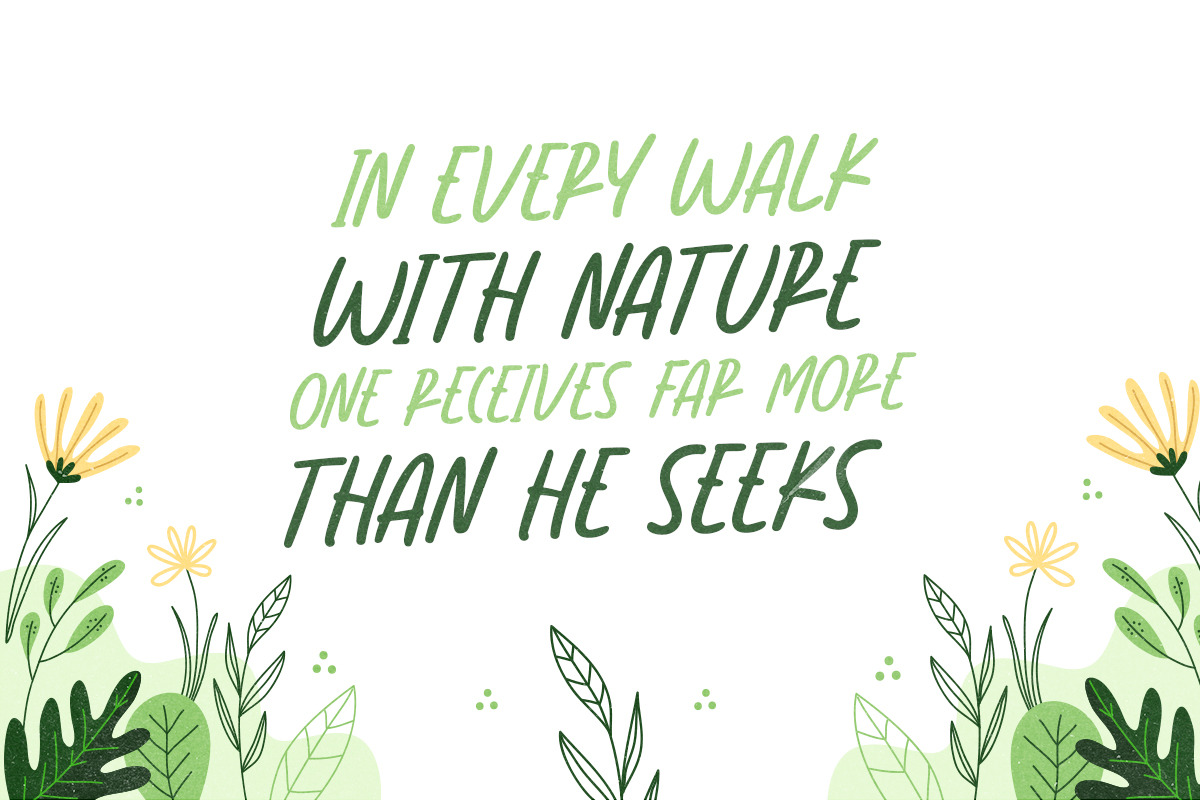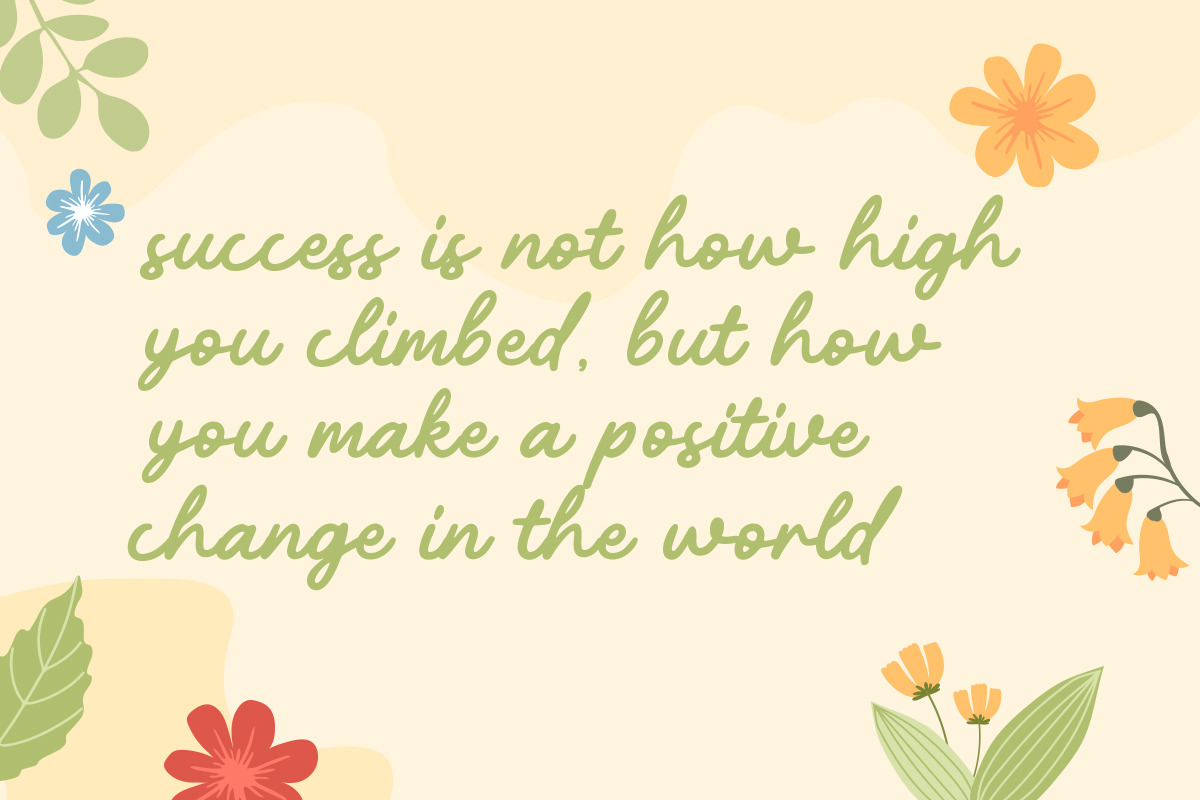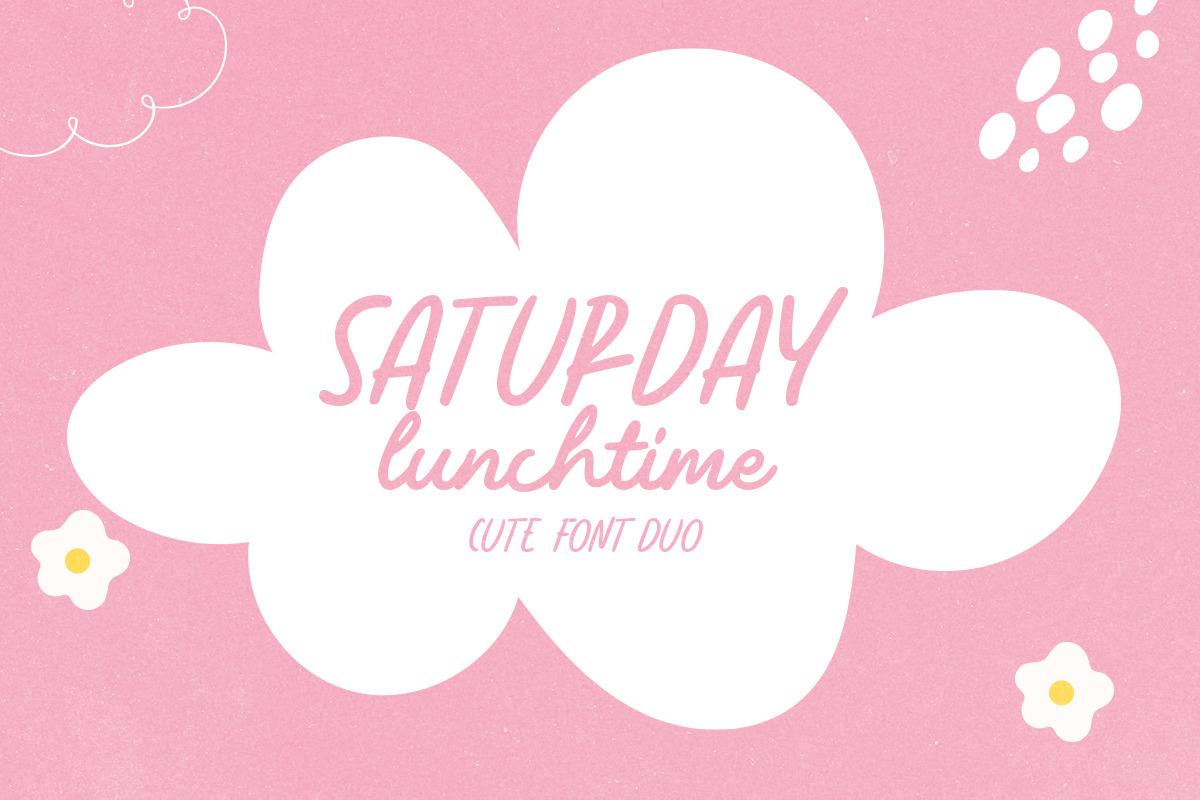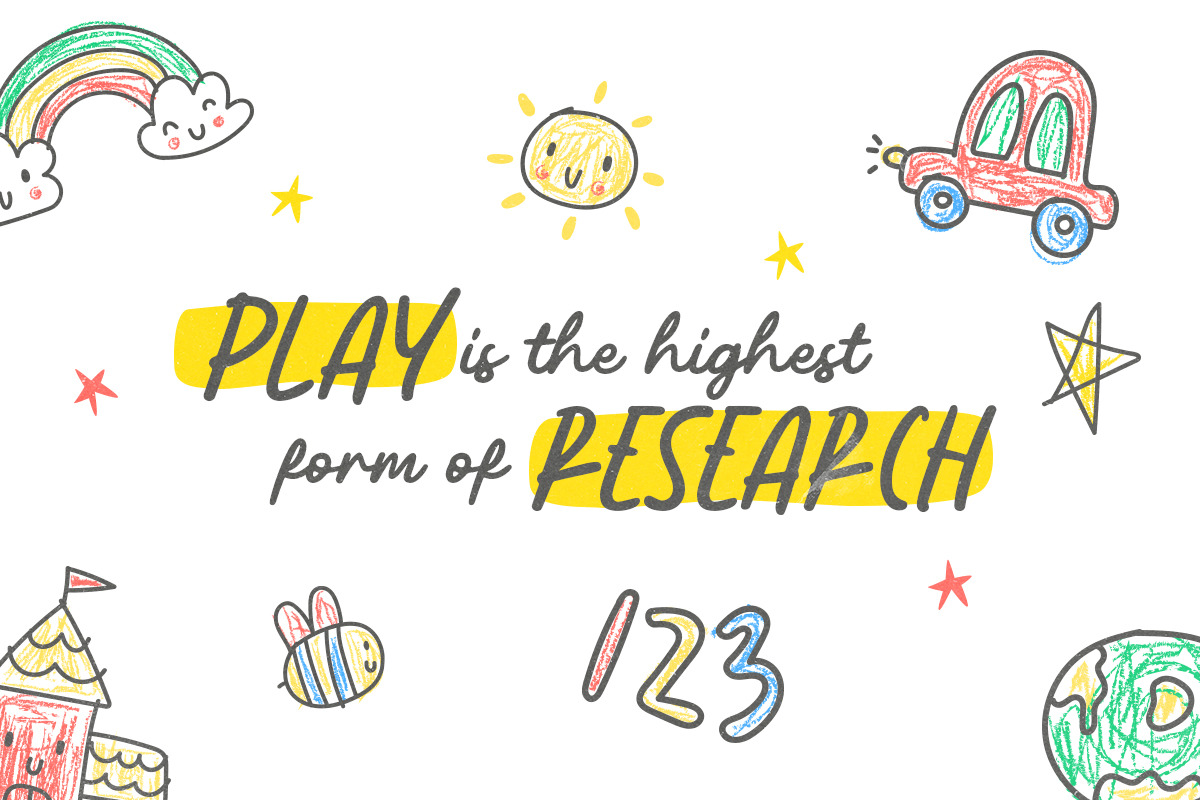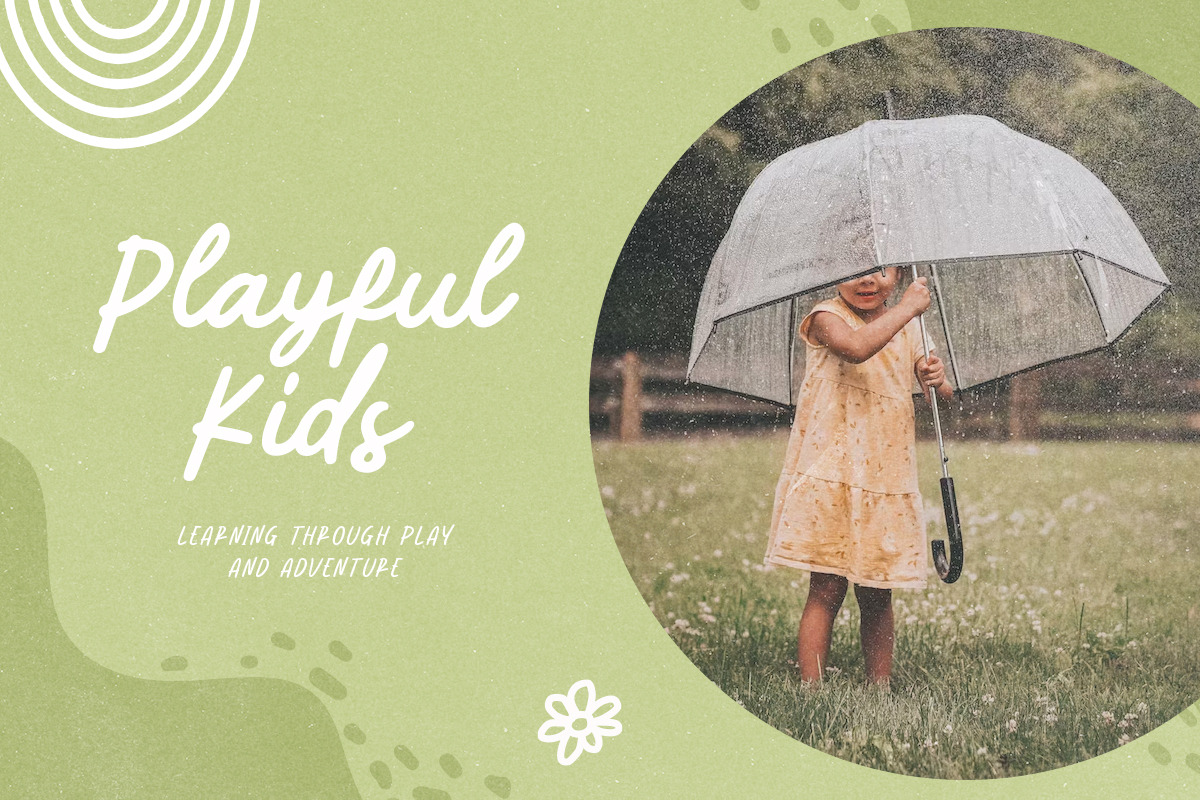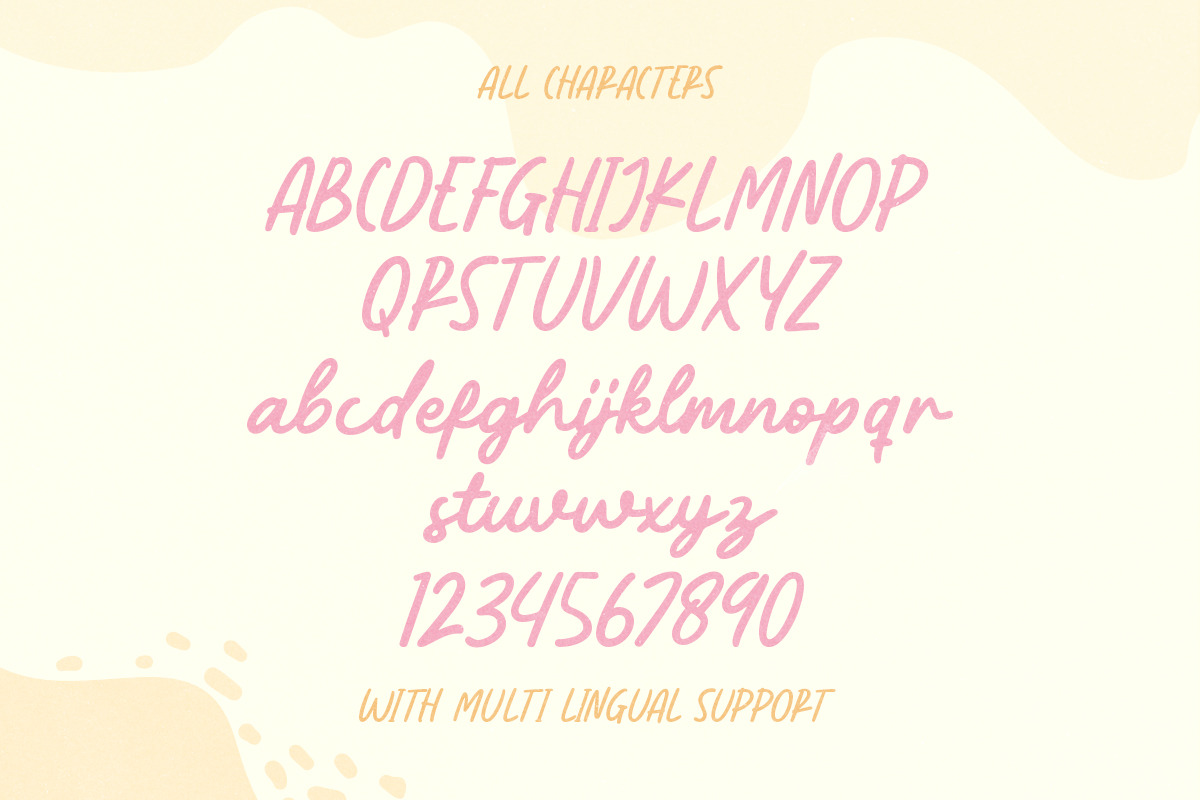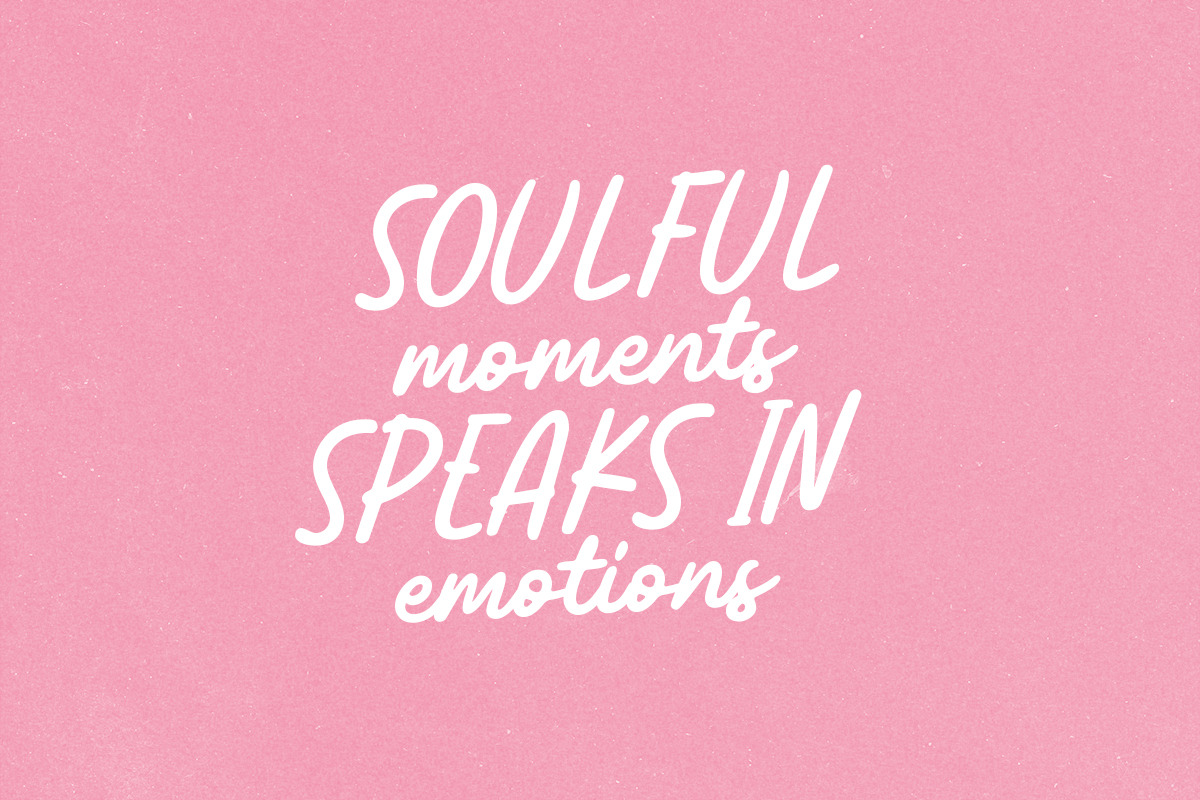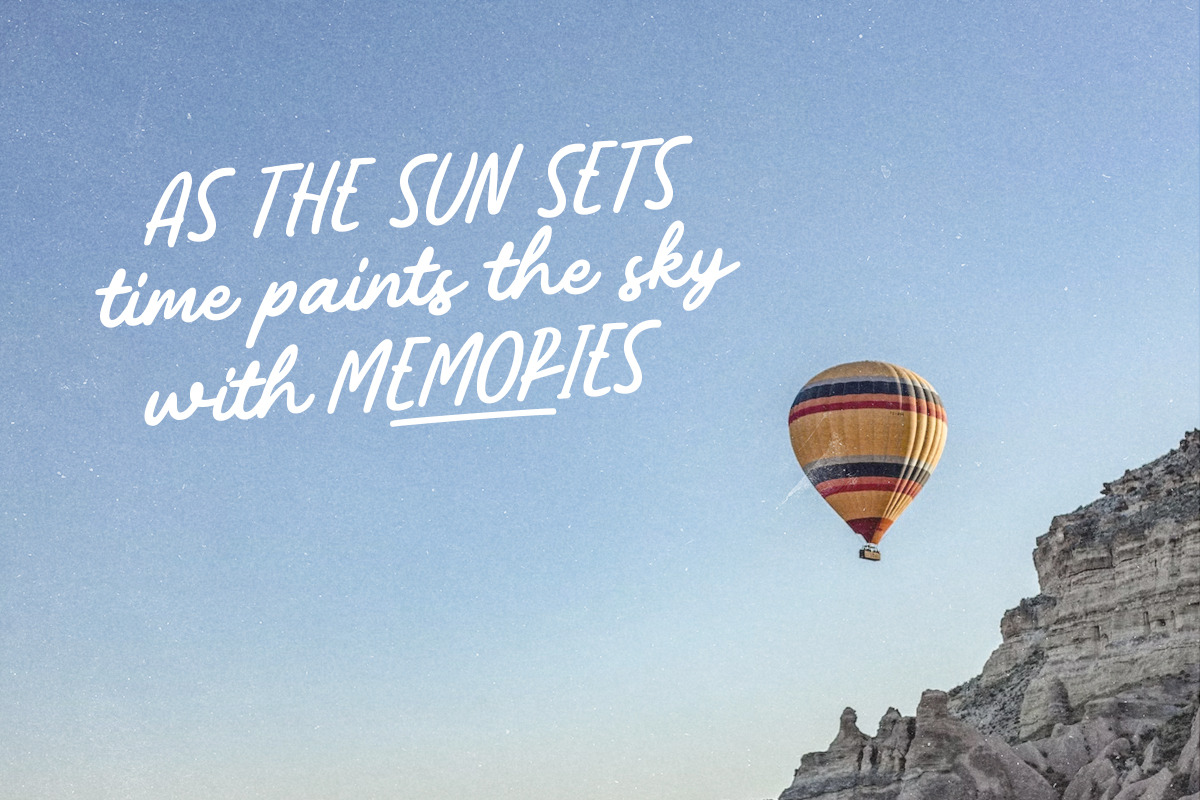
Saturday Lunchtime
Saturday Lunchtime Font is a delightful combination of handwritten sans serif in uppercase and charming script in lowercase. Crafted with a cute and playful vibe, this font is perfect for creating logos for children's brands or adding a touch of whimsy to quotes. Its versatility allows you to use either the uppercase or lowercase alone, and you can activate swashes by typing underscore followed by numbers 1-3. Elevate your designs with the joyful and dynamic aesthetic of Saturday Lunchtime Font!